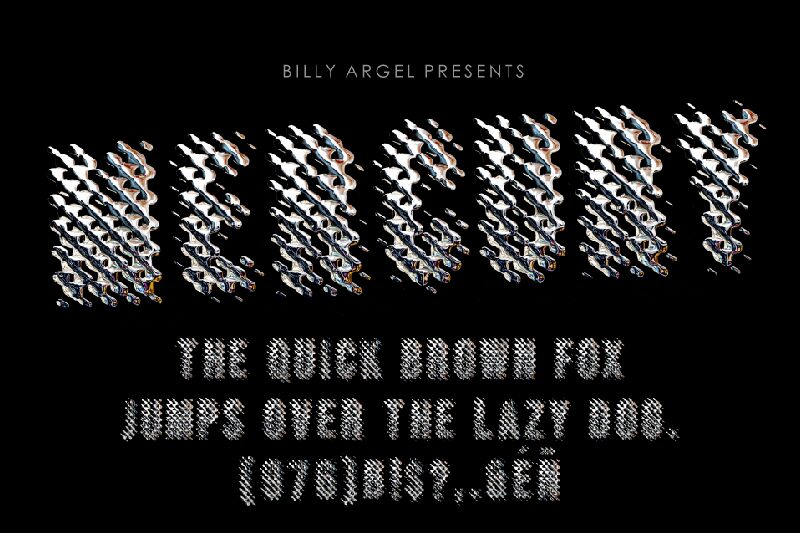
MERCURYBWPERSONALUSE-Regular
MERCURY BW, a display font designed by Billy Argel, captures attention with its distorted style and extra-bold weight. Its extra-condensed width adds a touch of uniqueness to any project it is applied to.
Perfect for album covers, movie titles, and branding materials, this font commands authority and makes a bold statement. With MERCURY BW, your designs will stand out from the crowd and leave a lasting impression on viewers.
Let your creativity take center stage with this striking typeface.